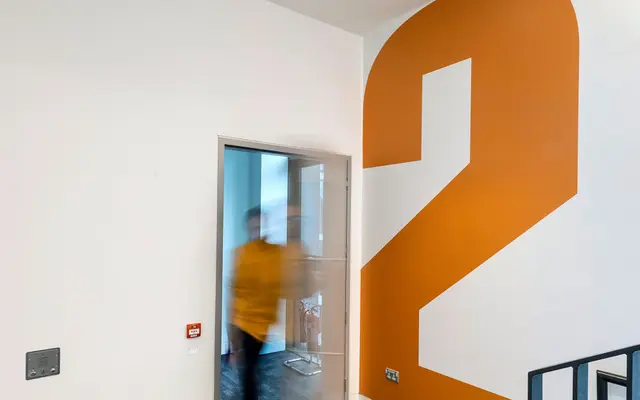
Pressio specimen from Signal
A dual-treatment display family from Signal, offering matching Solid and Stencil cuts across a grid-referenced numbering system of twenty styles each.
Pressio pairs a Solid and a Stencil subfamily, each sharing an identical range of twenty styles identified by a two-digit numbering convention rather than conventional weight names. The numeric system suggests a structured, modular approach to width and weight, offering designers a systematic toolkit for display and headline work. The matching cuts between Solid and Stencil allow direct typographic contrast within a single coherent system.
Pressio is explicitly offered in both Solid and Stencil subfamilies, placing it squarely in the display/stencil category. The numbered style system and dual-treatment approach suggest a modular, grid-based display design.